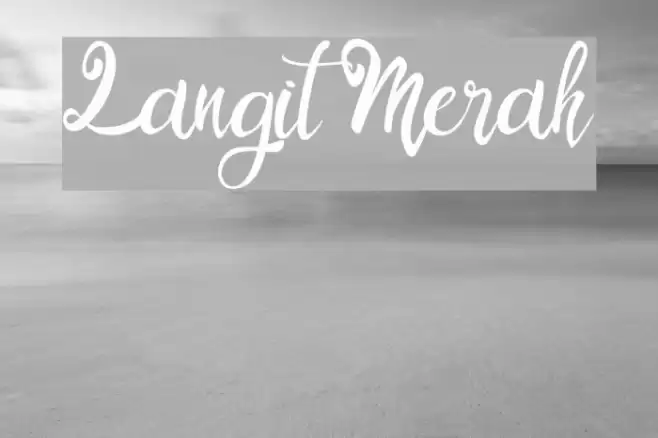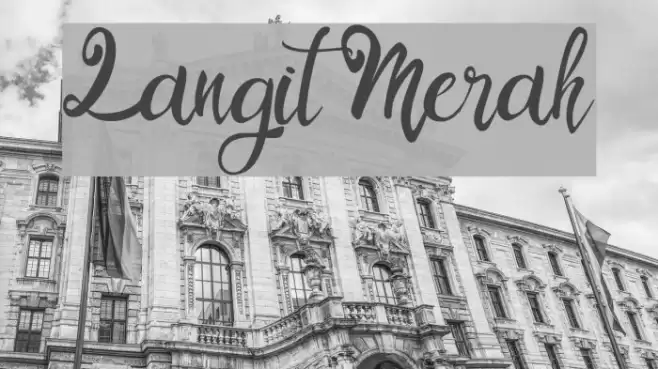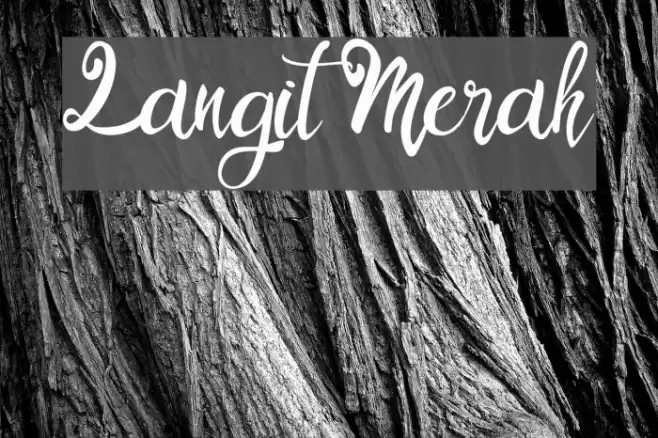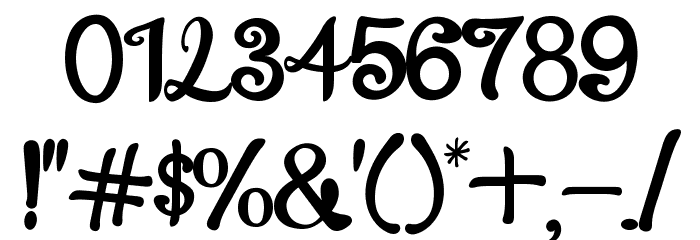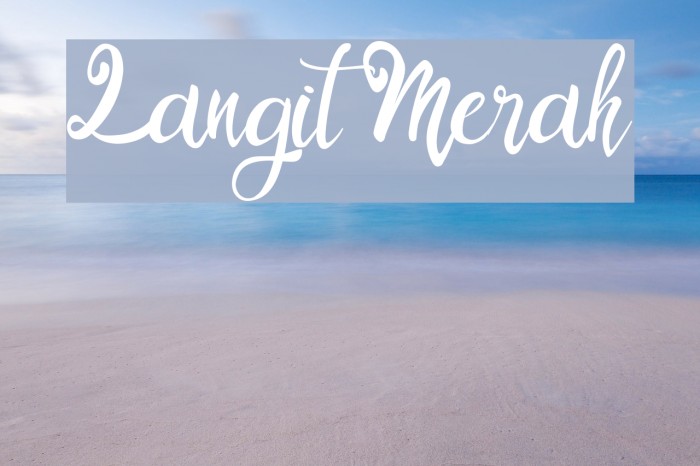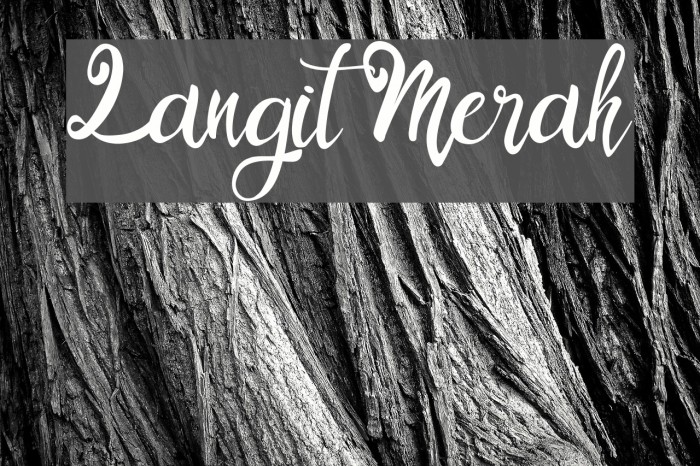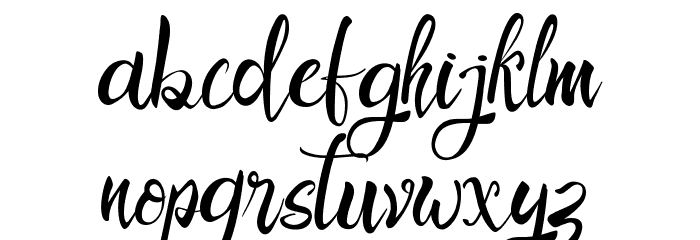
Langit Merah Font
Langit Merah Description
This font features a flowing, cursive style with elegant loops and swirls, giving it a sophisticated and artistic appearance. The uppercase letters are bold and expressive, while the lowercase letters maintain a consistent fluidity, enhancing readability. Numbers and special characters are designed with the same attention to detail, ensuring a cohesive look across all elements. The font's overall aesthetic is both classic and decorative, making it suitable for a variety of creative applications.
A decorative cursive font with elegant loops and swirls from Uncategorized fonts.
- Proposed Projects: Ideal for wedding invitations, greeting cards, branding, and logo design.
- Use Case: Logos, Invitations, Decorative text